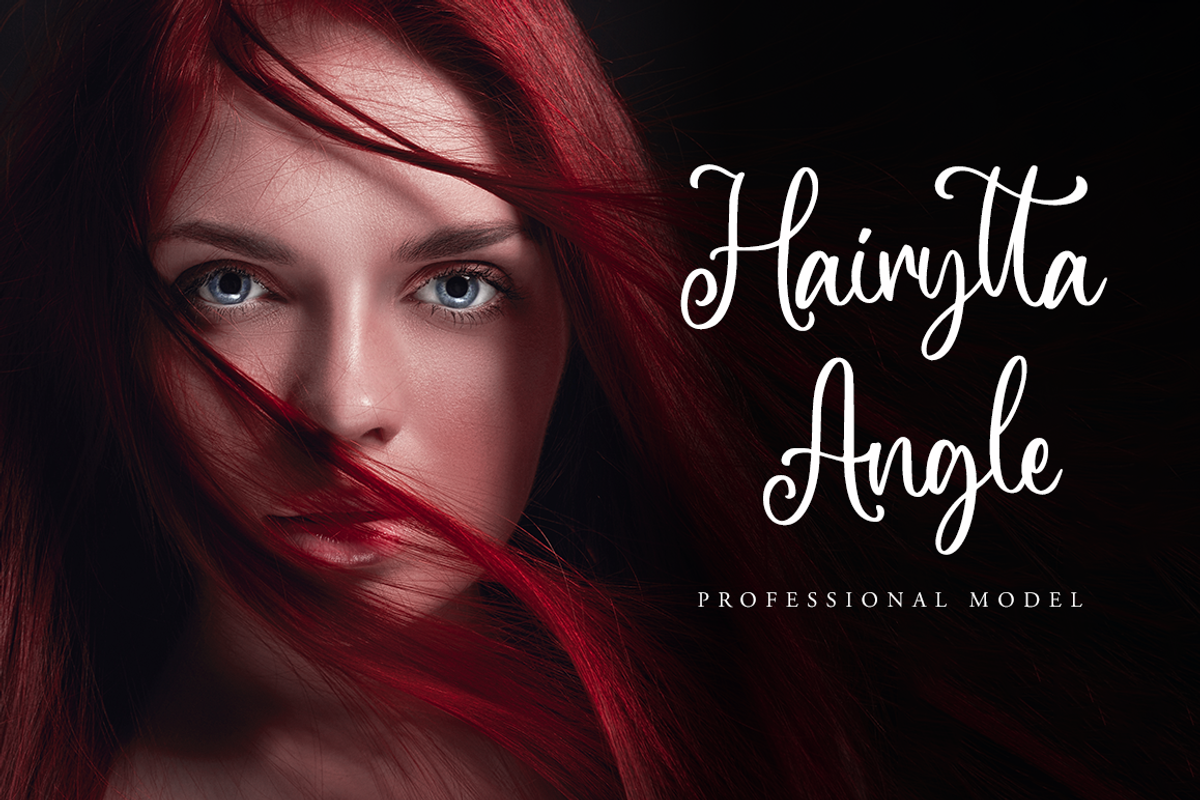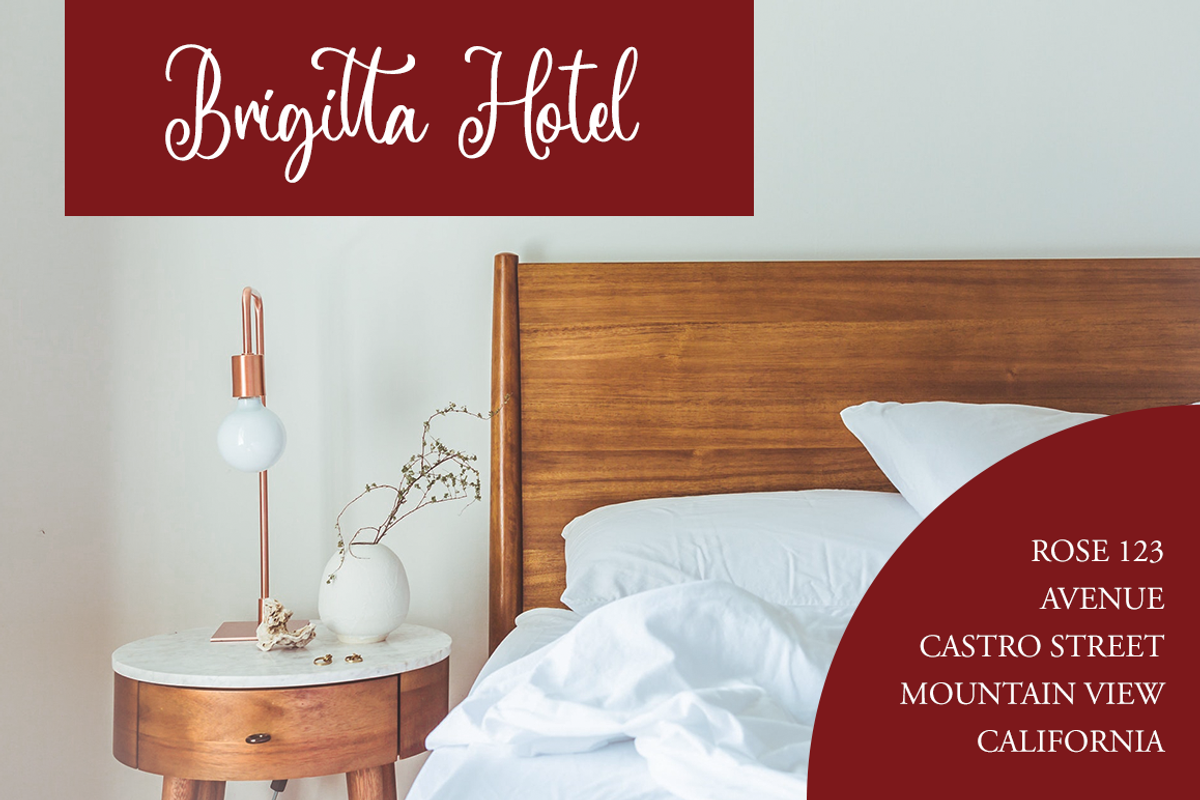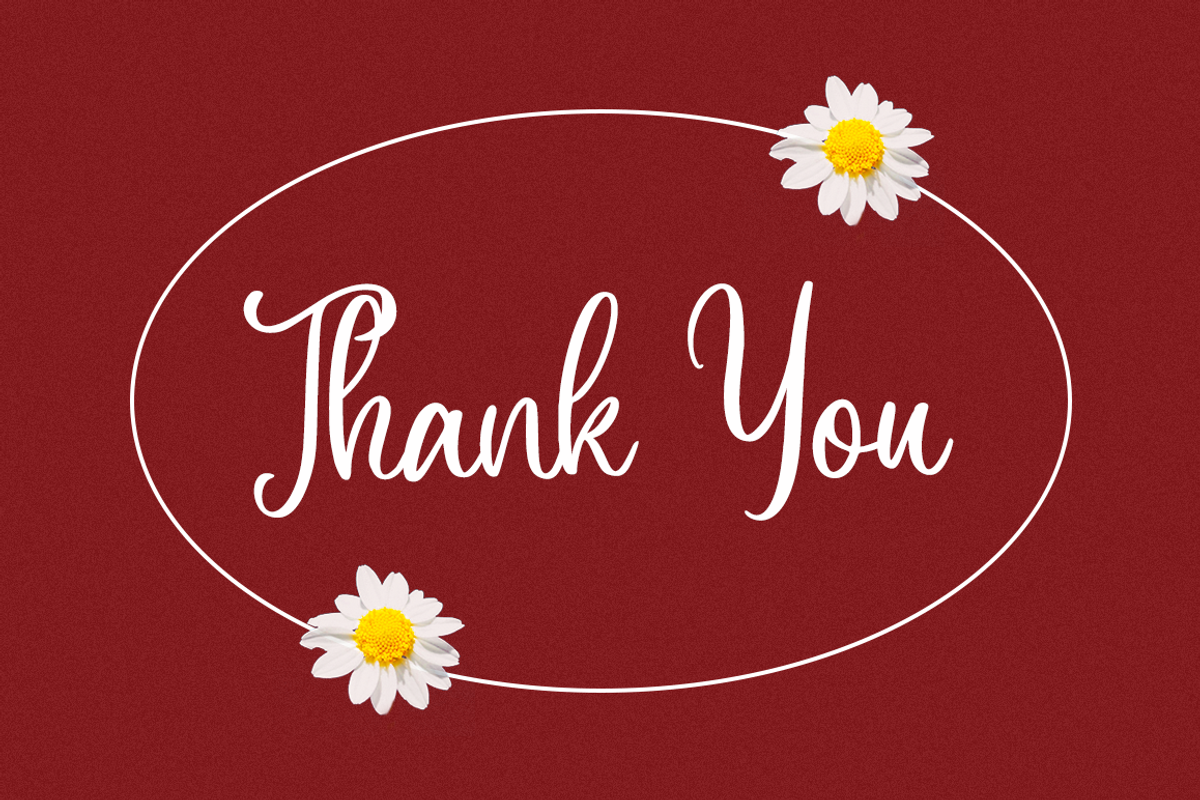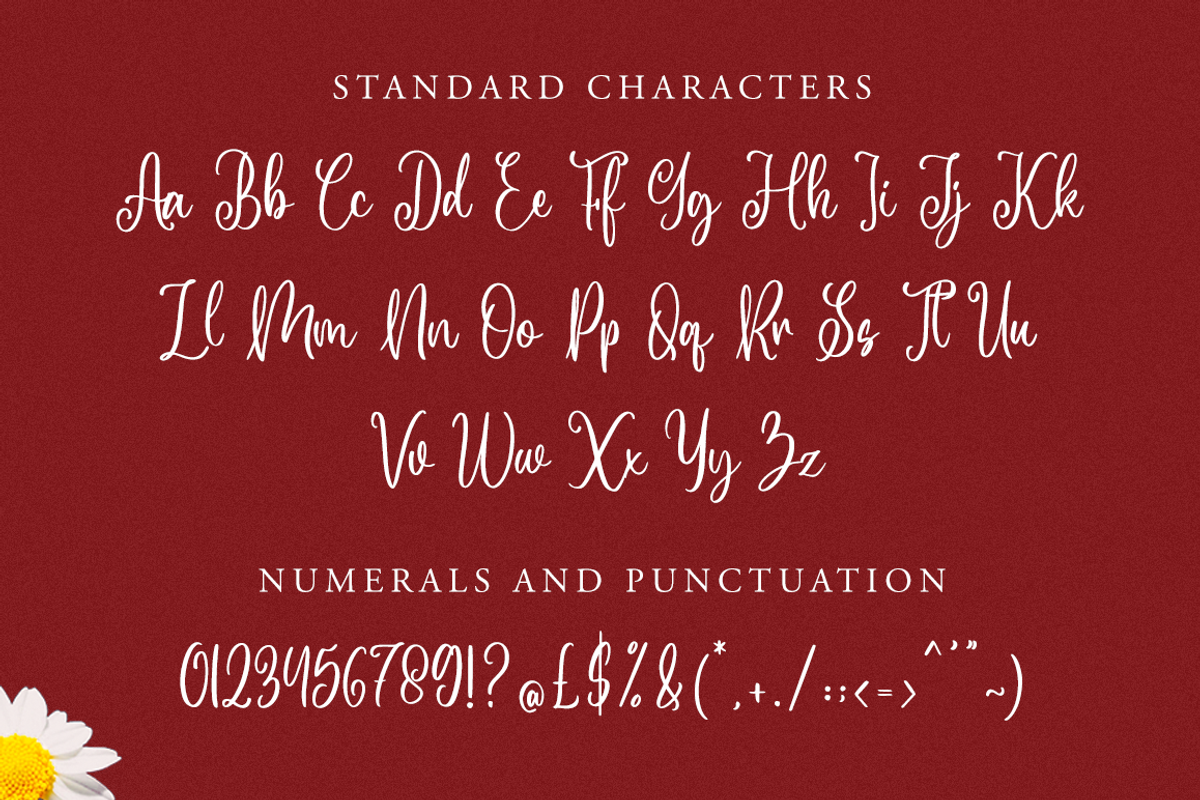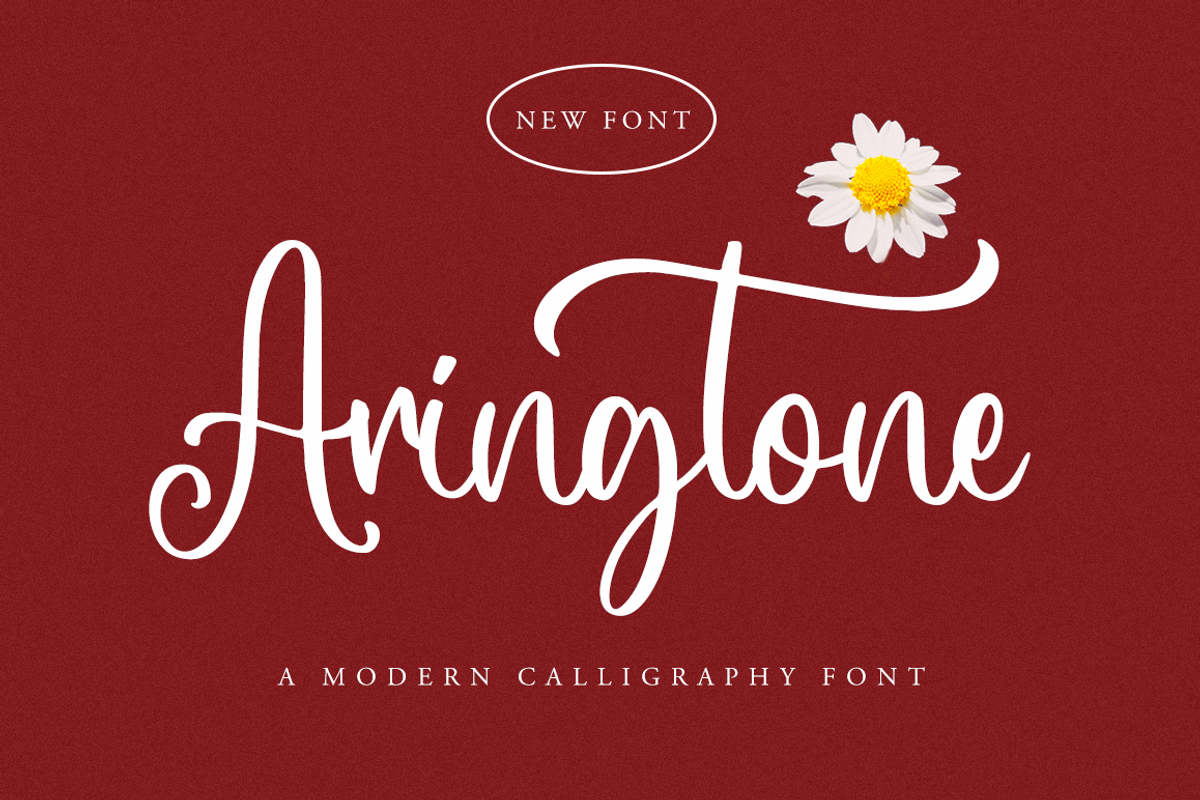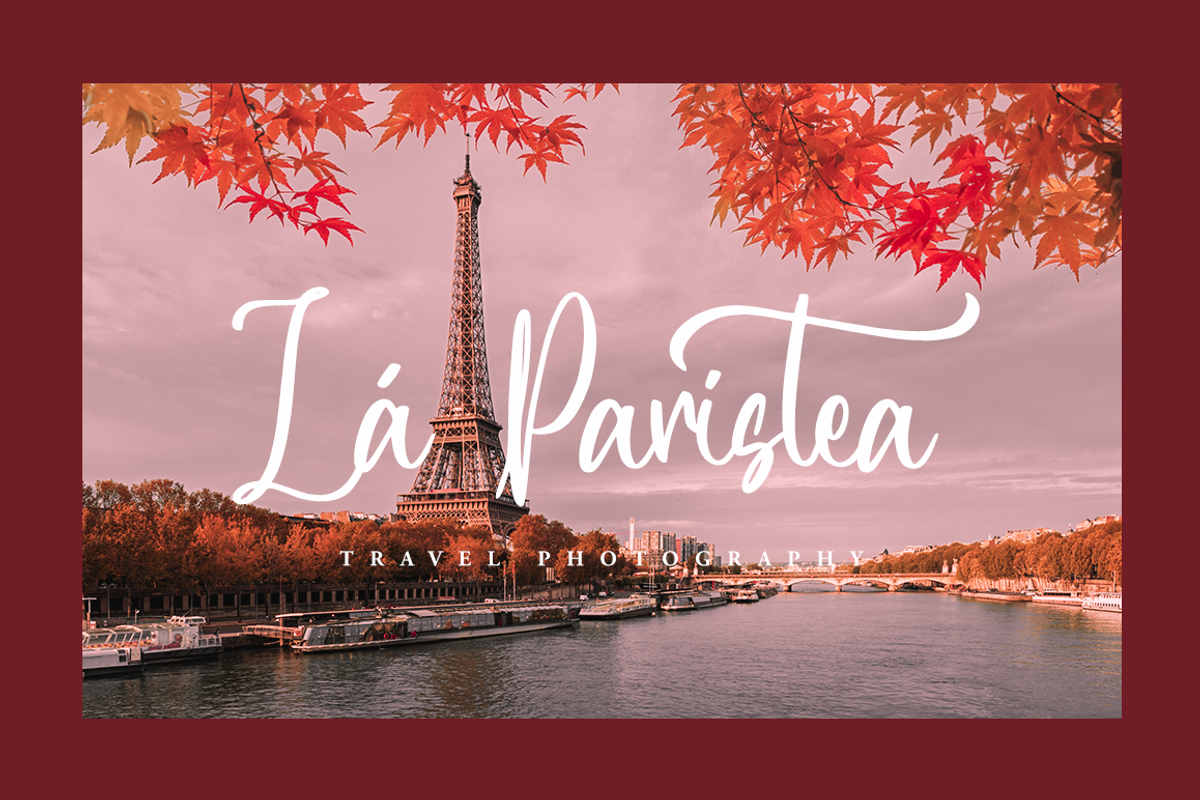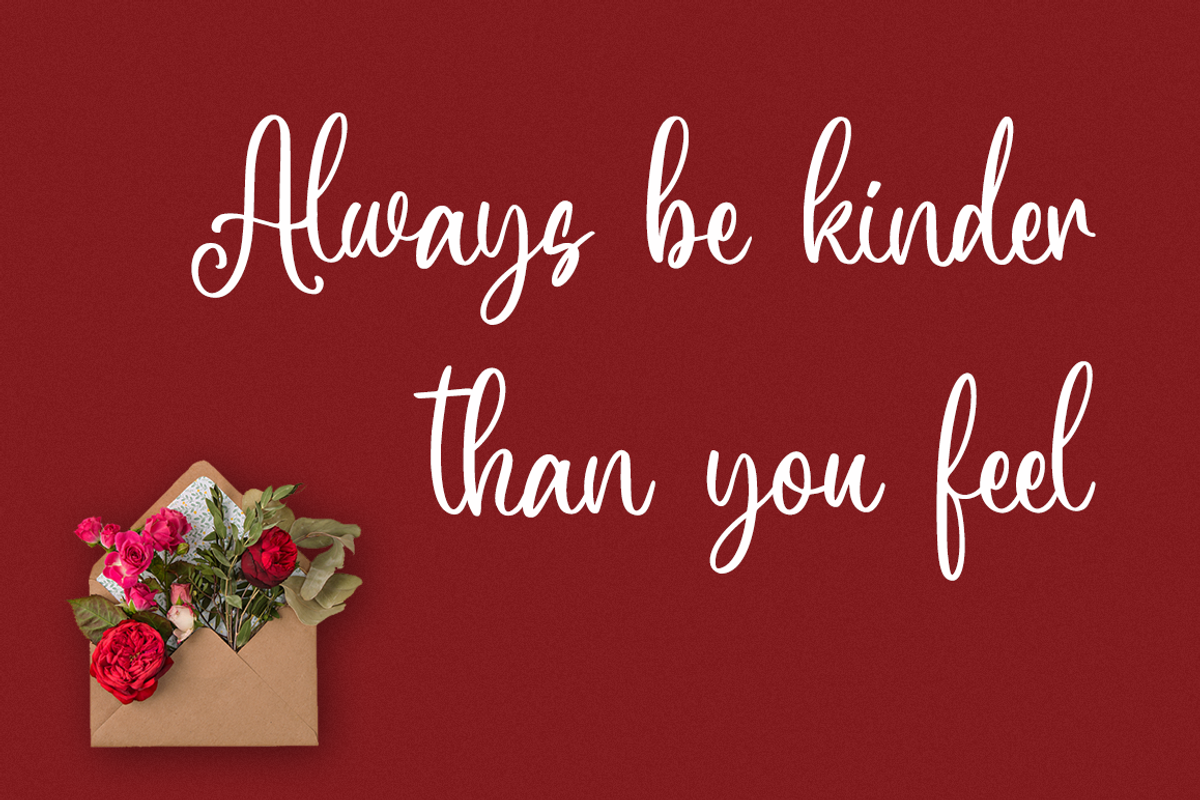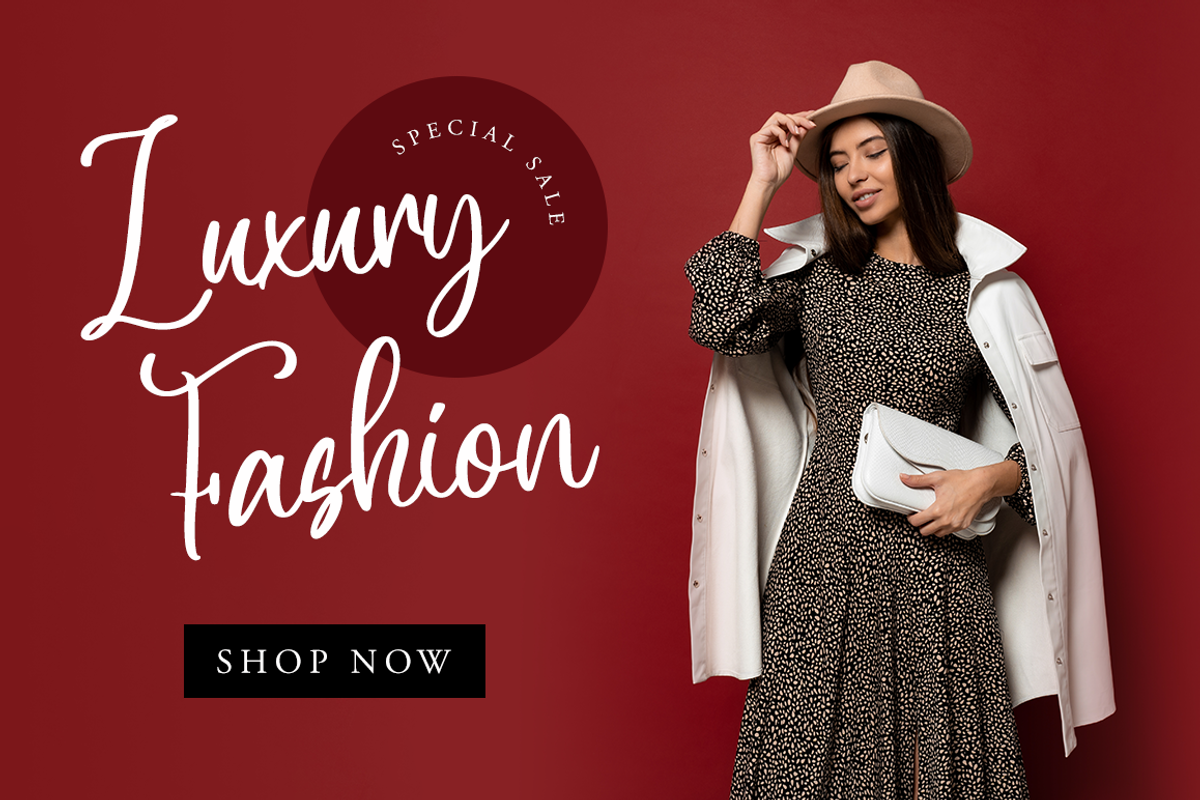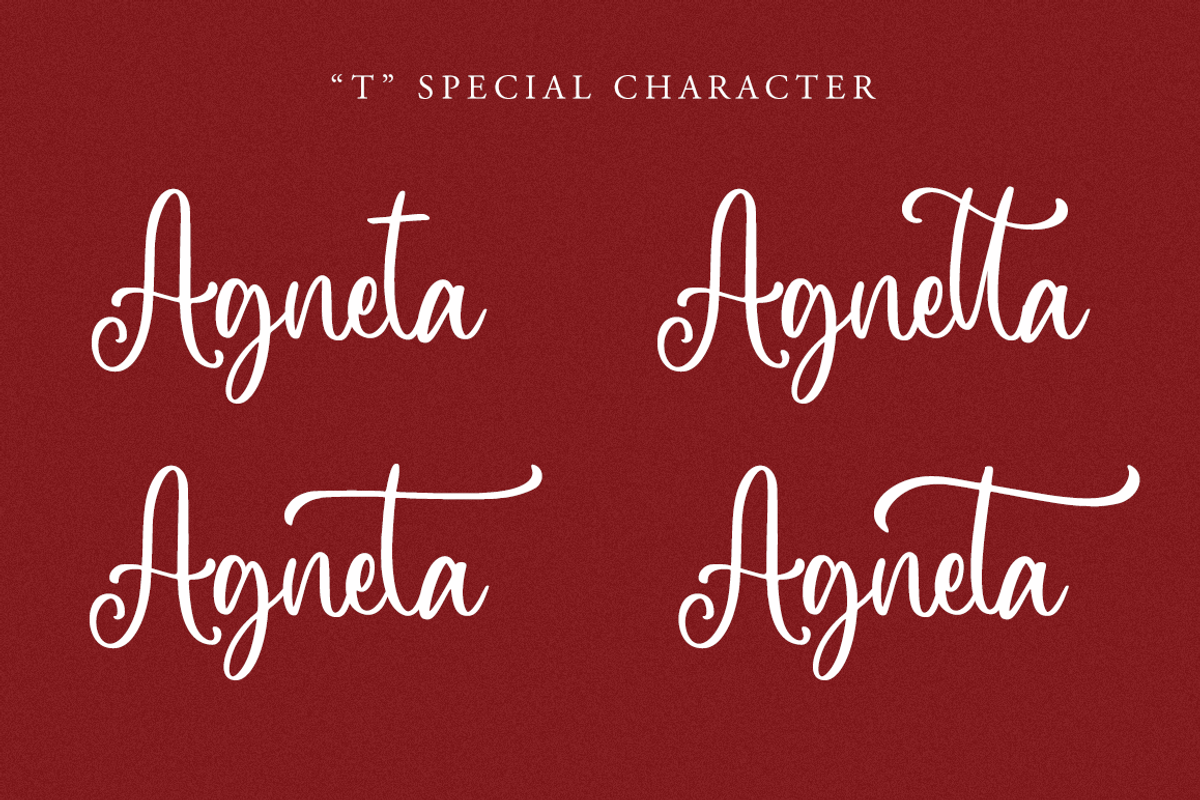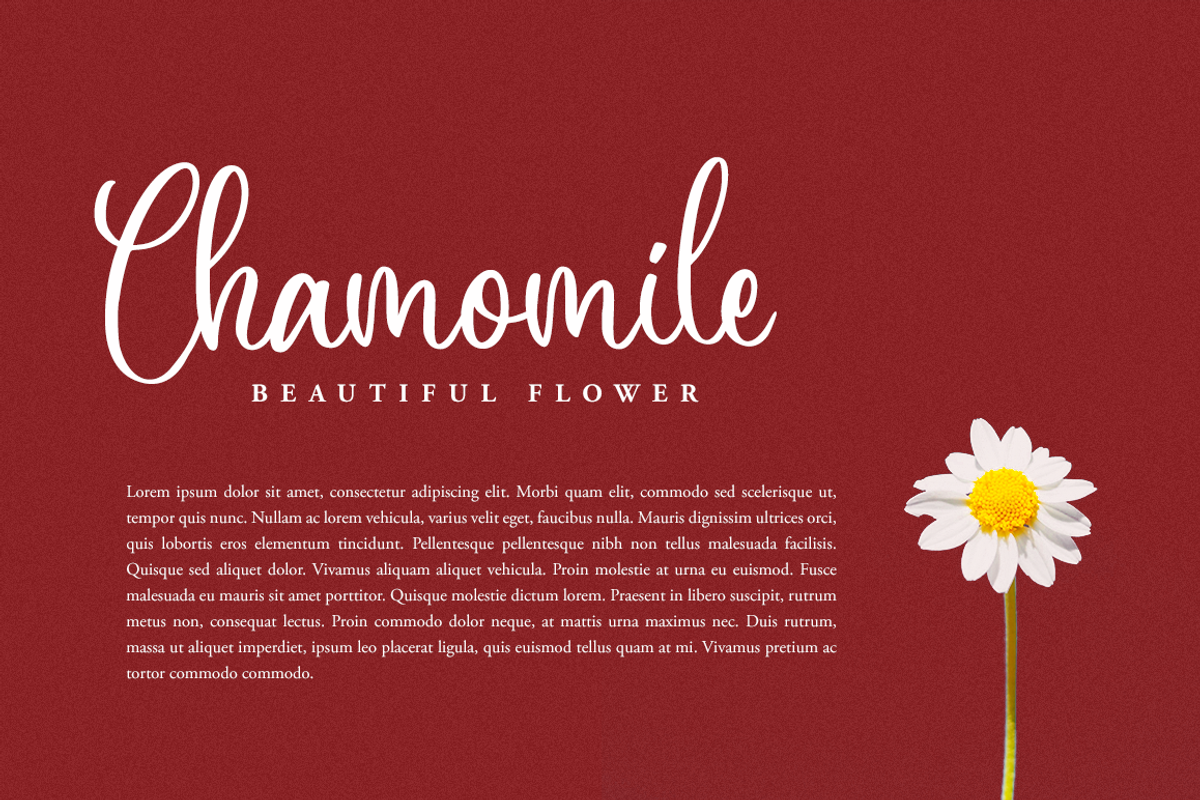
Aringtone a Modern Calligraphy Font
Aringtone is an elegant script font with a contemporary atmosphere and impeccable form, inspired by timeless classic calligraphy. Not too thin and not too thick, balanced and varied, this font was designed to enhance the beauty of your projects.